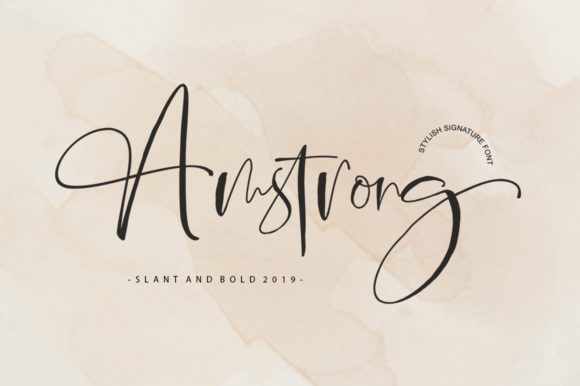
Allow us to introduce Amstrong Script Font, an extraordinary creation designed to make a mark on your artistic endeavors. This classic thin font, boasting an alluring italic style, is crafted to lend an air of elegance and sophistication to every project you undertake.
Amstrong beckons you to explore its versatility, proving itself as an indispensable tool for injecting creativity and uniqueness into your designs. Its graceful strokes and refined curves evoke a sense of timeless beauty, transforming ordinary designs into masterpieces.
Immerse yourself in a world of possibilities with Amstrong. Envision your designs taking center stage, captivating audiences with their refined elegance. Logos adorned with Amstrong Script Font exude professionalism and leave a lasting impression. Branding projects infused with its delicate touch radiate an air of exclusivity.
Household appliances adorned with Amstrong's artistry elevate everyday objects into conversation pieces, sparking admiration and envy among your guests. Product packaging adorned with its graceful lines enhances the perceived value of your products, turning them into irresistible must-haves.
Unleash your creativity and let Amstrong Script Font work its magic on your projects. Mugs bearing its elegant characters become treasured keepsakes, cherished for their beauty and sentimentality. Quotes rendered in Amstrong's refined style resonate deeply, inspiring and motivating readers.
Posters and shopping bags adorned with Amstrong's delicate strokes become walking advertisements, subtly promoting your brand's message wherever they go. Logos crafted with its timeless charm establish a strong brand identity, ensuring your business stands out from the competition.
T-shirts emblazoned with Amstrong's graceful lines make a bold statement, showcasing your unique style and taste. Book covers adorned with its artistic flair hint at the captivating stories within, enticing readers to delve into their pages.
Business cards, invitation cards, and greeting cards become works of art when graced with Amstrong's presence, leaving a lasting impression on recipients and elevating the ordinary into the extraordinary.
Amstrong Script Font is more than just a collection of characters; it's a gateway to a world of creativity and elegance. It's an invitation to transform your designs, to elevate them beyond the ordinary. Embrace its potential and watch as your projects blossom into masterpieces that captivate, inspire, and leave an indelible mark on the world.